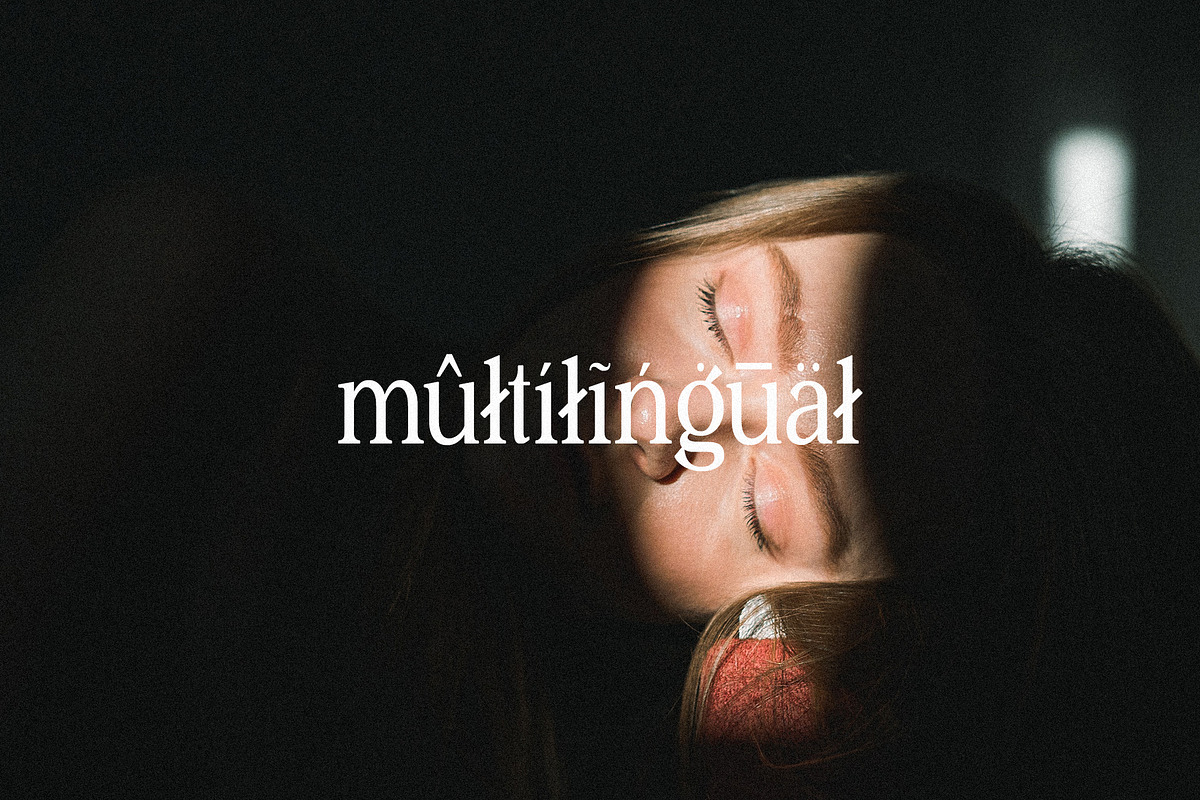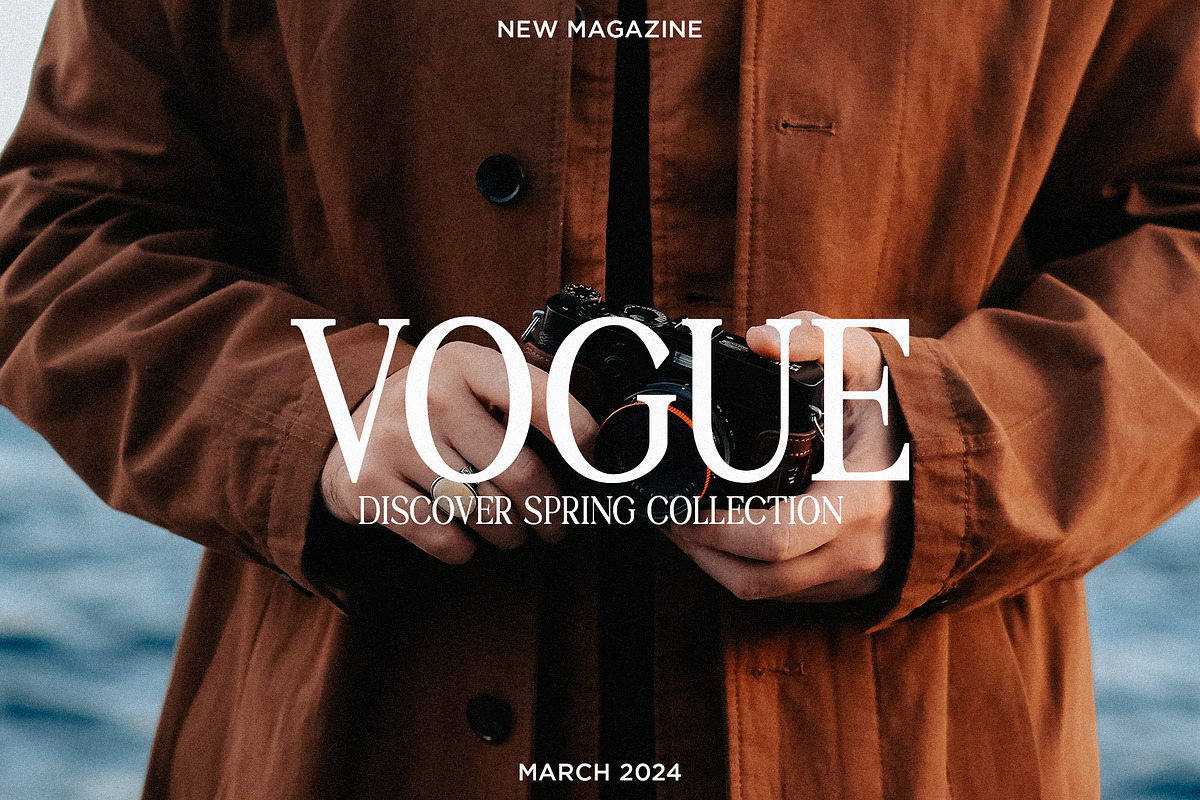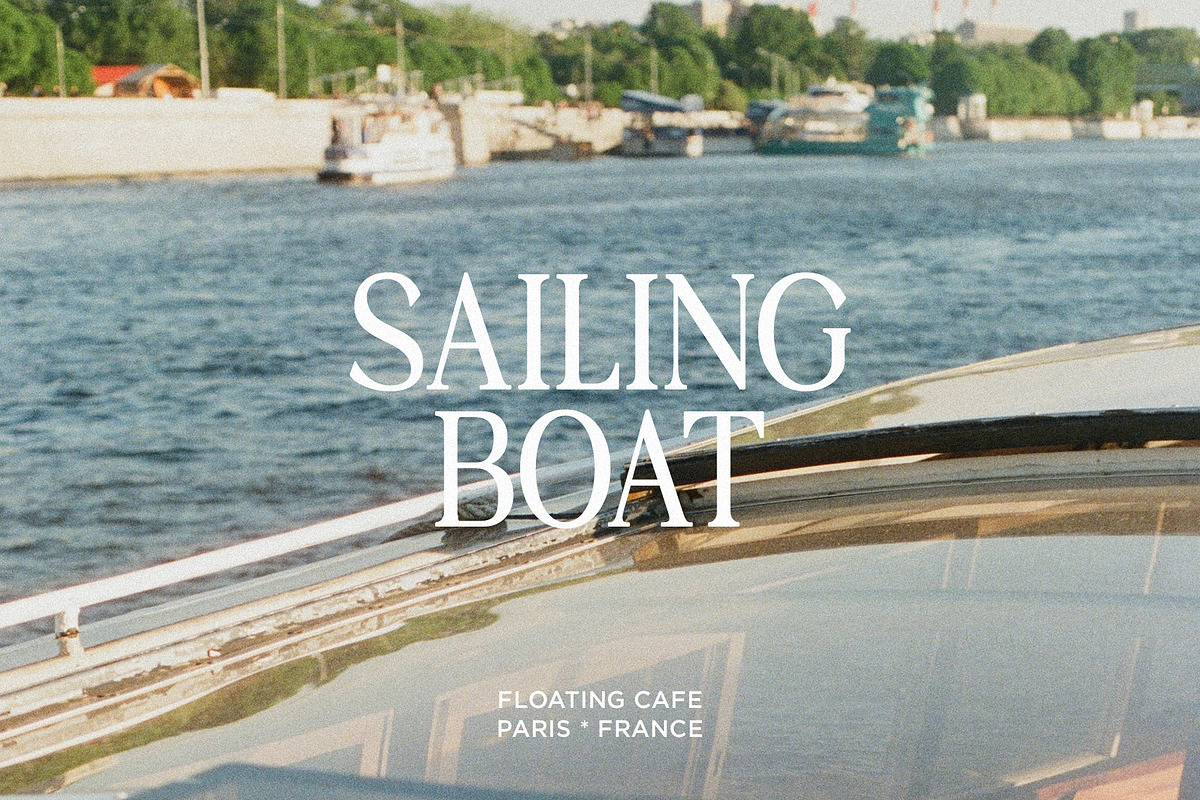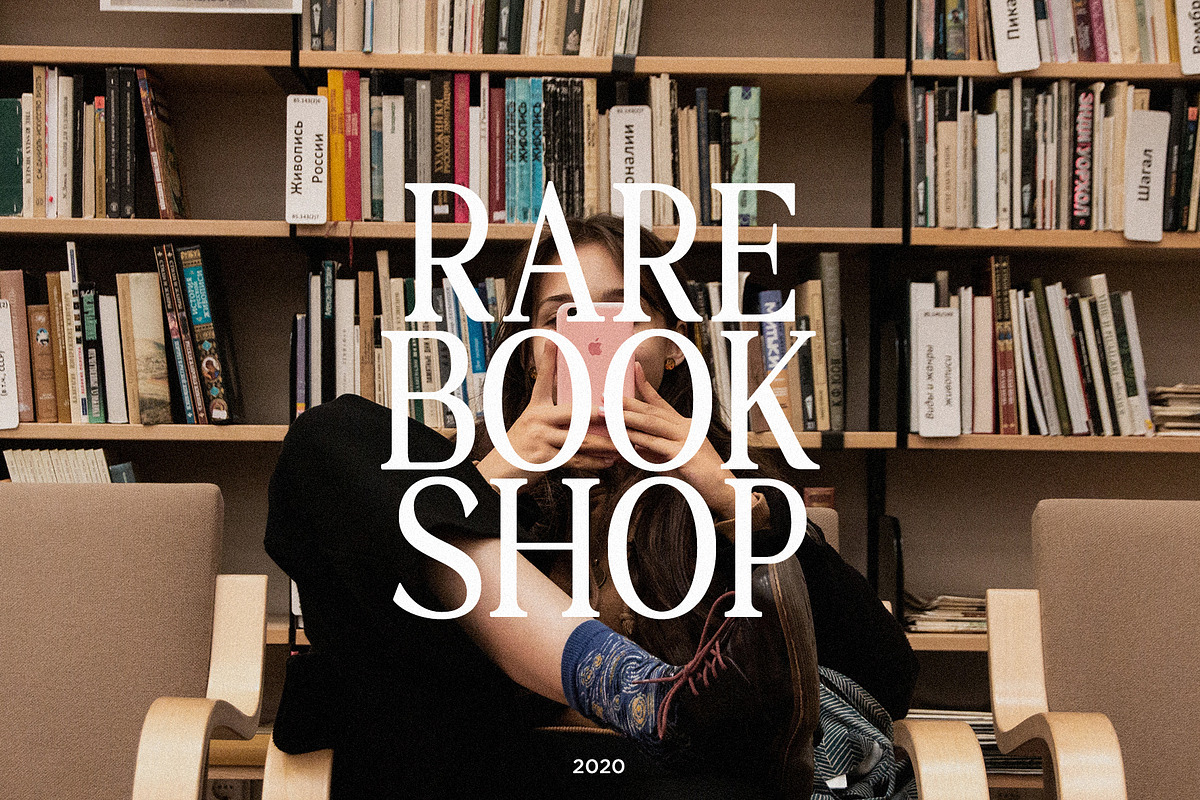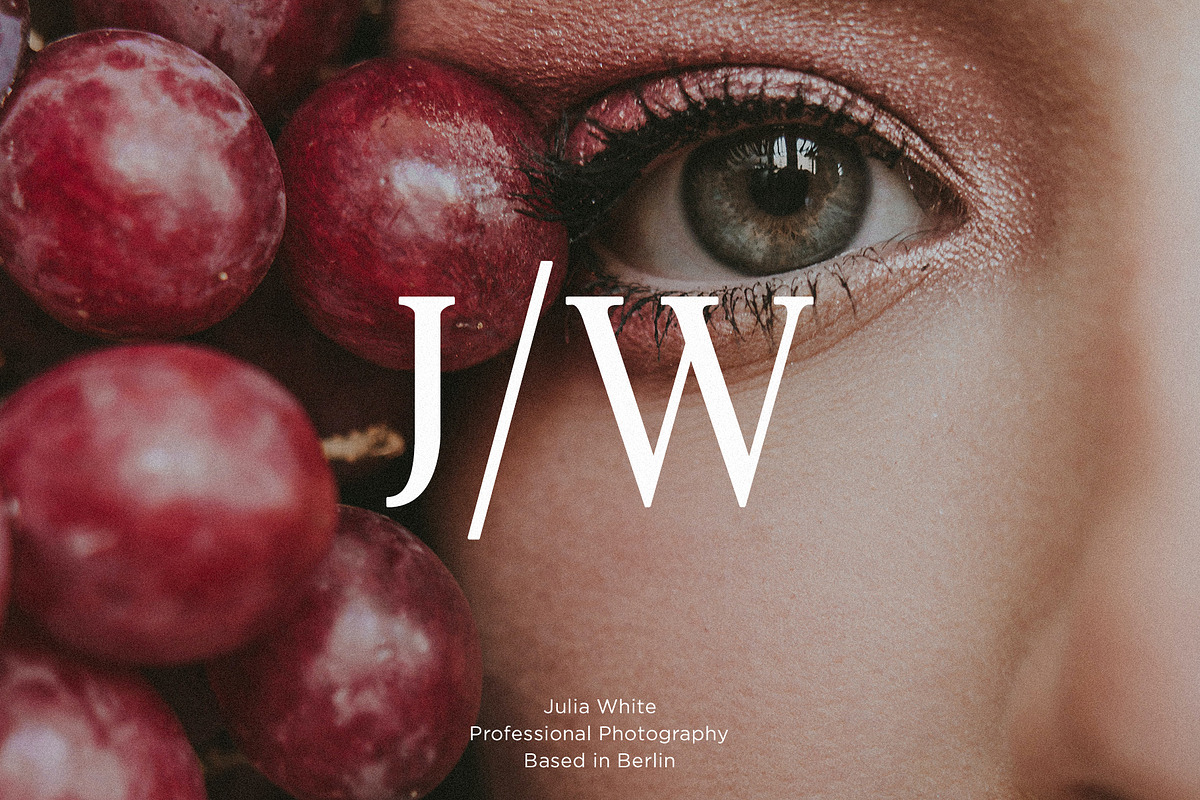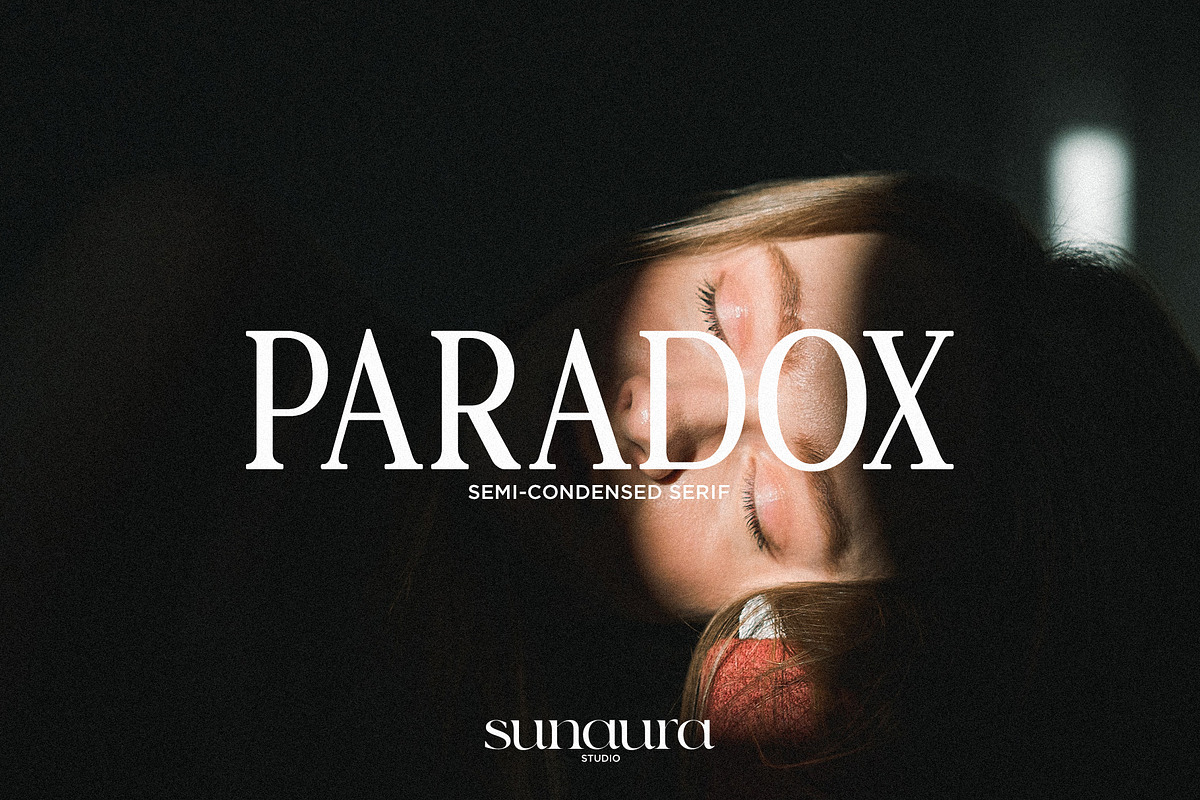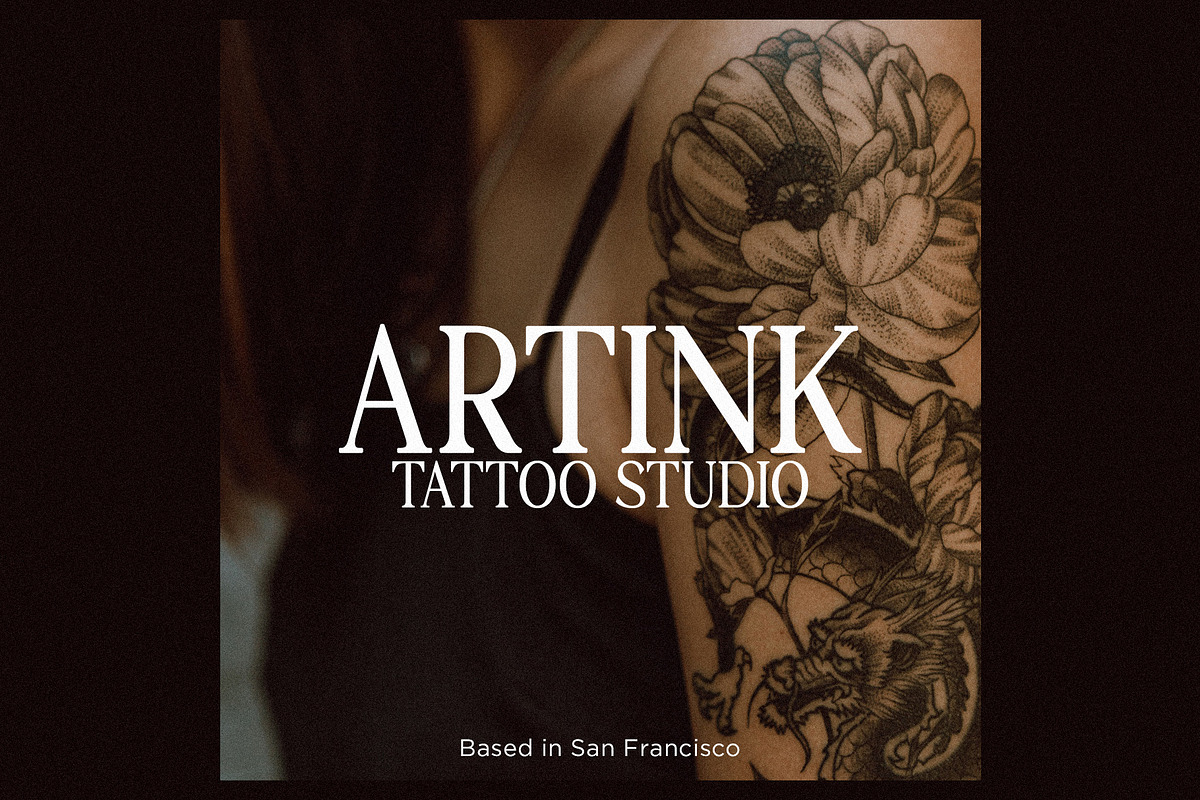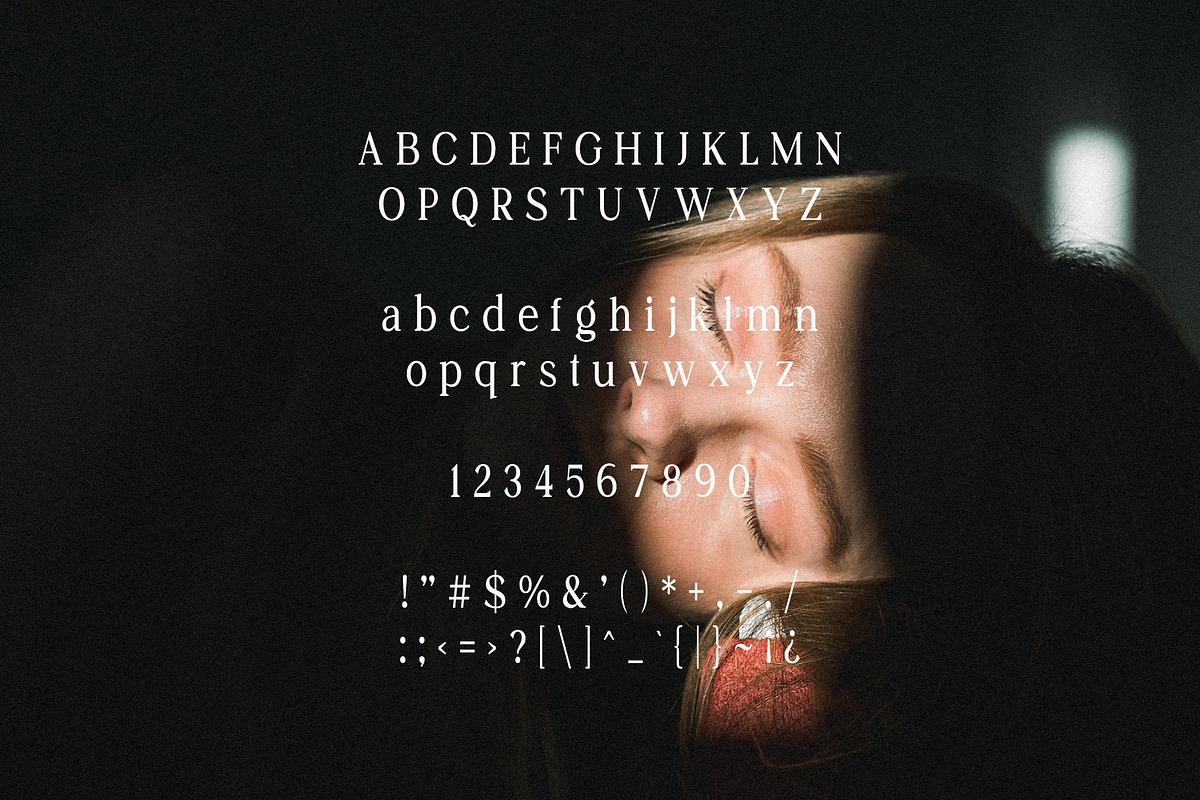
PARADOX - Semi-Condensed Serif
PARADOX is a modern semi-condensed serif typeface designed for professional and elegant typography. With its sleek and sophisticated appearance, PARADOX is perfect for a wide range of design projects, from branding to editorial layouts. Its unique combination of classic serif elements with a contemporary twist makes it a versatile choice for both print and digital applications. PARADOX features multilingual support, over 250+ glyphs, uppercase & lowercase letters, numbers & symbols.